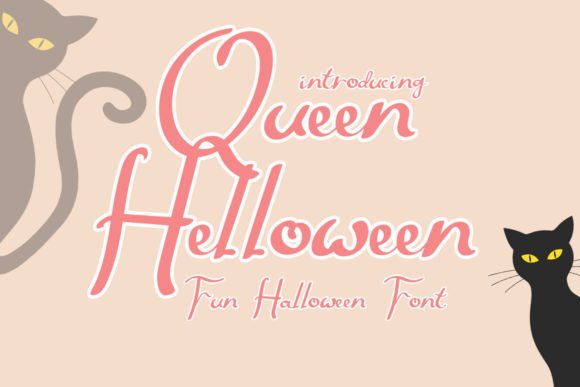
Prepare yourself to be spellbound by the Queen Helloween Font, a mesmerizing script font family that will cast a magical charm on your designs. Crafted with meticulous care by Eddygoodboy, this font exudes a captivating and ethereal aura, making it the perfect choice for creating enchanting posters that demand attention.
With its enchanting curves and delicate flourishes, the Queen Helloween Font is a true feast for the eyes. Its multiple weights and styles provide you with the ultimate flexibility, allowing you to conjure a captivating symphony of design elements. Whether you're crafting captivating headlines, enchanting body text, or designing logos that radiate elegance, this font has the power to transform your creative visions into reality.
Unleash the magic within your designs and let the Queen Helloween Font be your guiding light. Its captivating presence will leave an indelible mark on your audience, enchanting them with its timeless beauty. Embrace the allure of this captivating font and embark on a creative journey that transcends the boundaries of the ordinary.